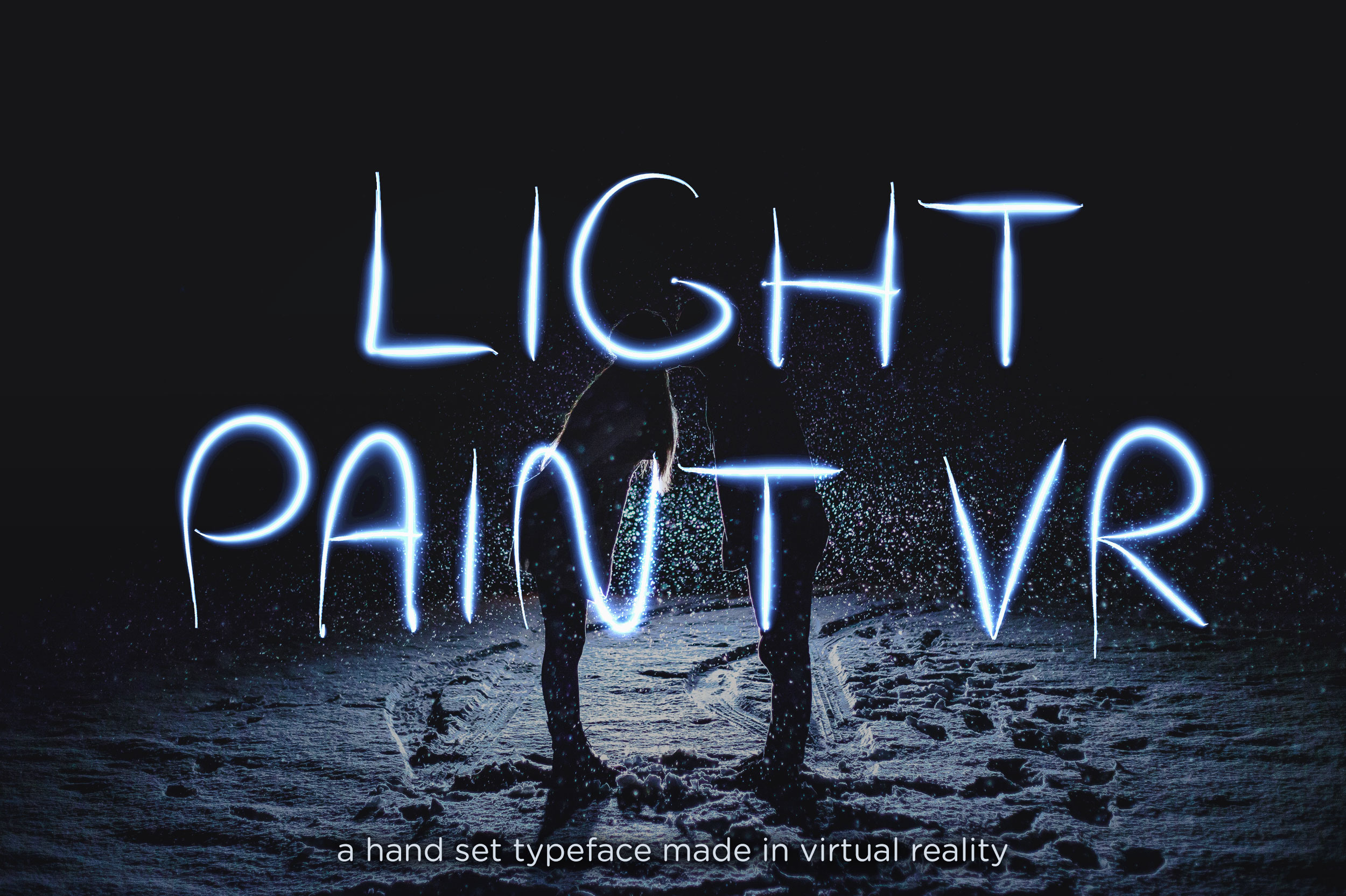
Light Paint VR Typeface
Introducing Light Paint VR Typeface
It was my second day in the future. Well, using Google Tilt Brush on the HTC Vive to be precise.
One of the first things I’ve notice people draw in their debut outing in VR is their name, and I wasn’t much different. I started drawing letters and couldn’t stop. Instead of a blank canvas, I started with a dark vastness. But there was a sense of freedom in the darkness. I turned the music on, I moved my arms, but distinctly differently, I’m moving my feet. These light streak characters were the result which I’ve collated into a typeface. The experience was promising and filled with possibility.
- Light streak phantasmagorical look.
- Hand drawn in virtual reality and converted to layered graphics.
- Bonus extra streaky light streak.